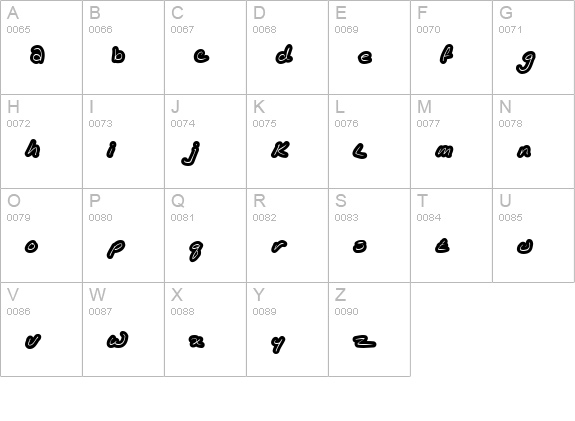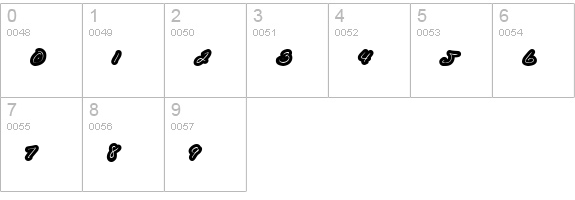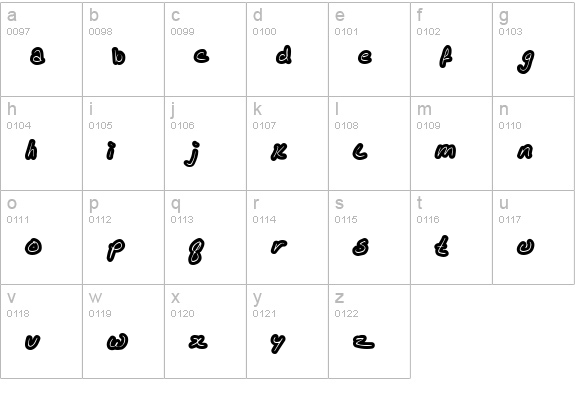
KathleenLowercase Font Details
Introducing KathleenLowercase font, a stunning and versatile typeface that exudes elegance and sophistication. This font is perfect for adding a touch of grace and modernity to any design project. With its sleek lines and delicate curves, KathleenLowercase font effortlessly captivates the eye and elevates your creations to new heights. What's even better is that KathleenLowercase font is absolutely free! Yes, you read that right. This extraordinary font is freely available to download at FontsMarket.com. Now, you can enjoy the beauty and versatility of KathleenLowercase font without breaking the bank. Whether you're designing a wedding invitation, a logo, a blog header, or any other creative endeavor, KathleenLowercase font has got you covered. Its timeless charm and refined aesthetic make it the ideal choice for both print and digital designs. Plus, its lowercase letters add a touch of uniqueness and modernity, setting your work apart from the rest. But KathleenLowercase font isn't just visually stunning – it's also incredibly easy to work with. Its clean and well-defined characters ensure legibility at any size, making it perfect for both large-scale projects and small details. You won't have to worry about your message getting lost in the intricacies of the font – KathleenLowercase font ensures that your words shine through with clarity and style. So why wait? Unlock your creativity and elevate your designs with KathleenLowercase font. Download it for free today at FontsMarket.com and let your imagination run wild. Whether you're a professional designer or a passionate hobbyist, KathleenLowercase font is the perfect tool to bring your vision to life. Get ready to make a lasting impression with this remarkable font, freely available for all your design needs.